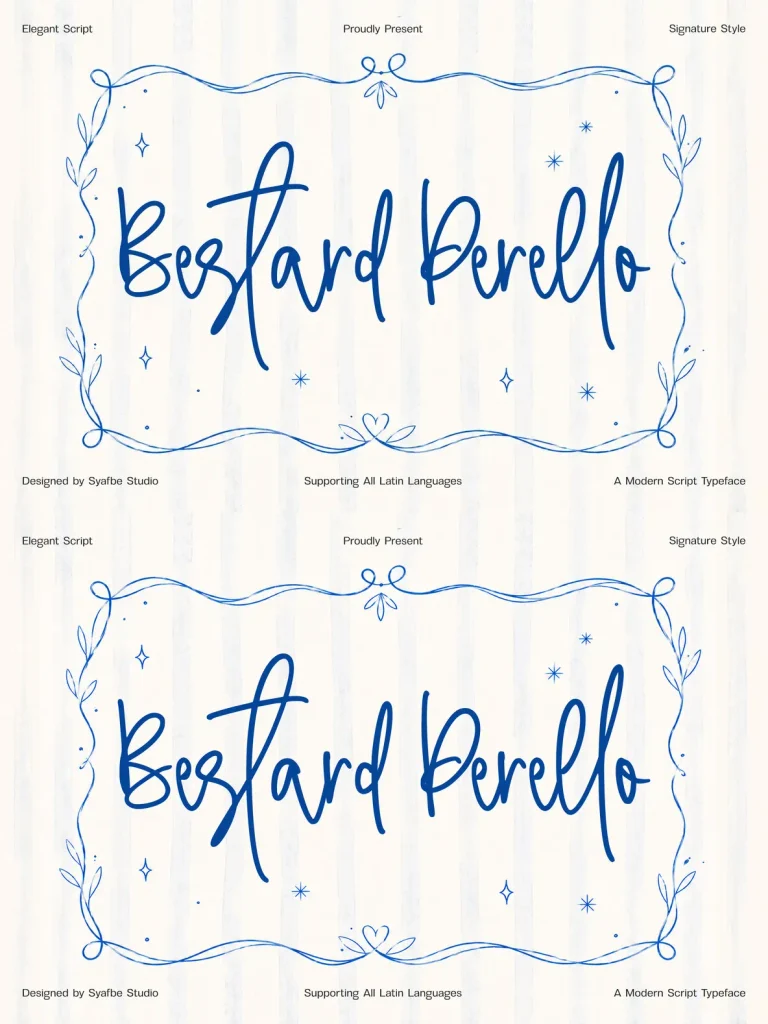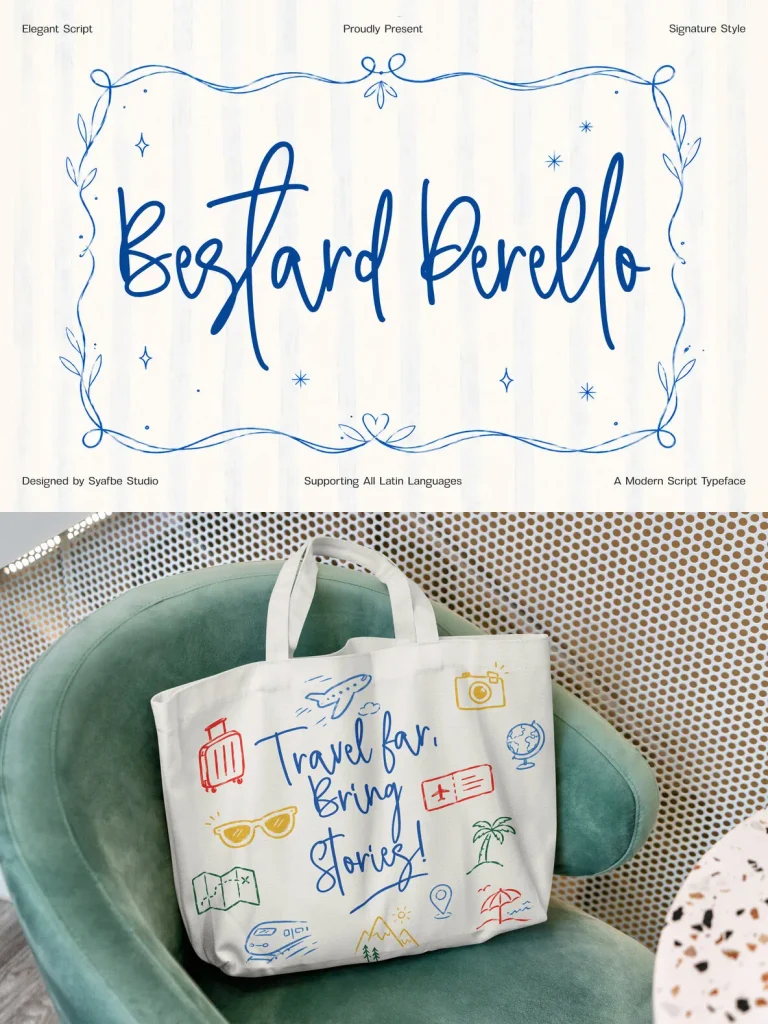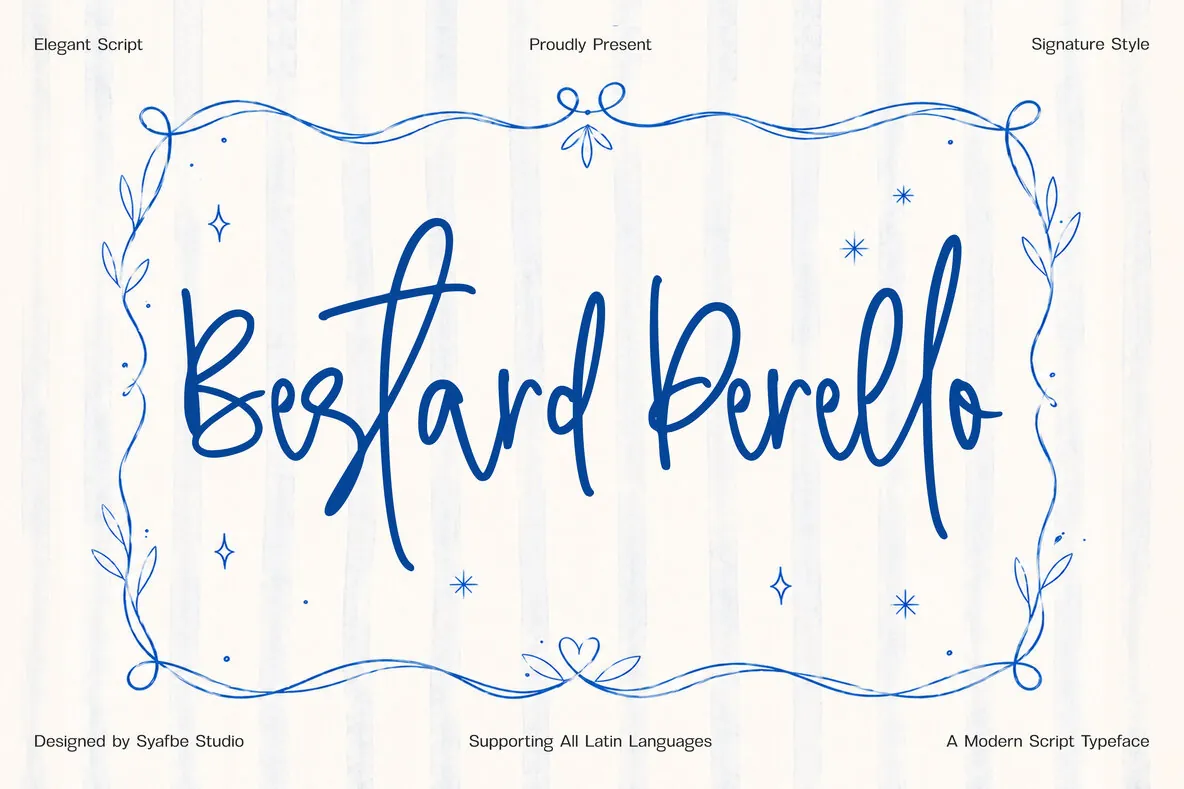
Bestard Perello — Refined Signature Grace
Bestard Perello is an elegant modern script typeface designed to bring a refined handwritten touch to every creative project. Its graceful strokes, natural flow, and sophisticated signature style capture the beauty of authentic penmanship while keeping a contemporary, versatile appearance. The font includes smooth letter connections, stylish alternates, ligatures, and multilingual support, giving designers the tools needed for polished typography across wedding invitations, branding, logos, packaging, editorial designs, social media content, and other high-end visual projects.
Inspired by timeless elegance and modern creativity, Bestard Perello blends the charm of handcrafted lettering with the practical control needed for professional design work. Its delicate yet confident character suits brands, designers, and creatives who want a memorable visual identity with a warm, exclusive impression. Use it for a signature logo, boutique branding, romantic stationery, or premium lifestyle products when a design calls for sophistication, personality, and a distinctly artistic handwritten presence.